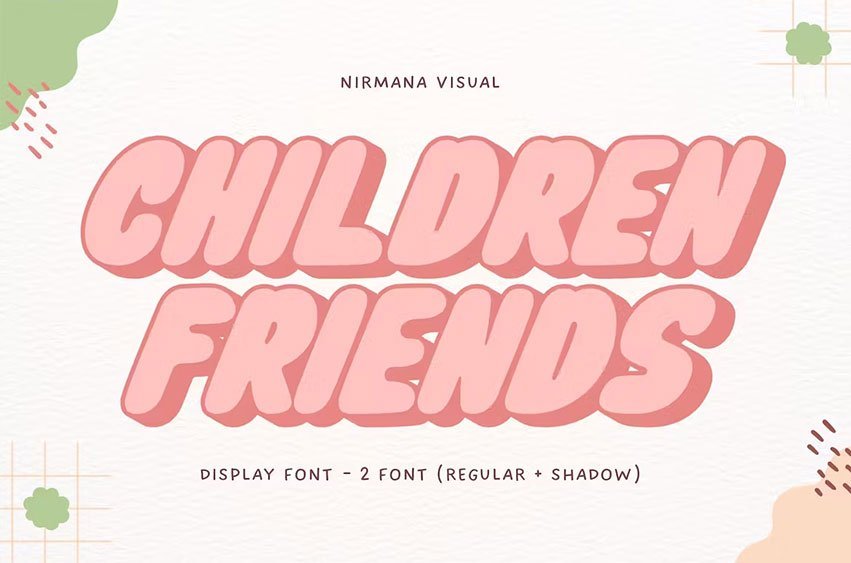
Children Friends Font is a kid’s font with beautiful typographic harmony for a diversity of design projects, including logos & branding, social media posts, advertisements & product designs.